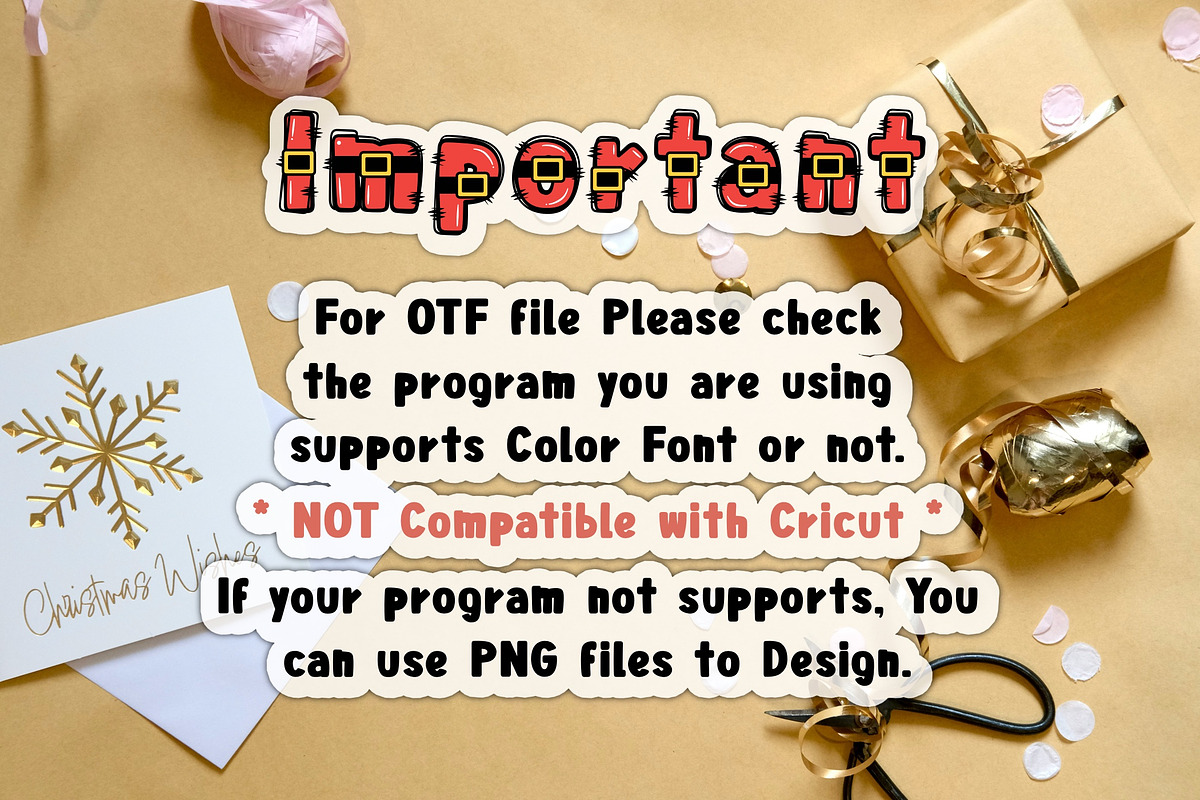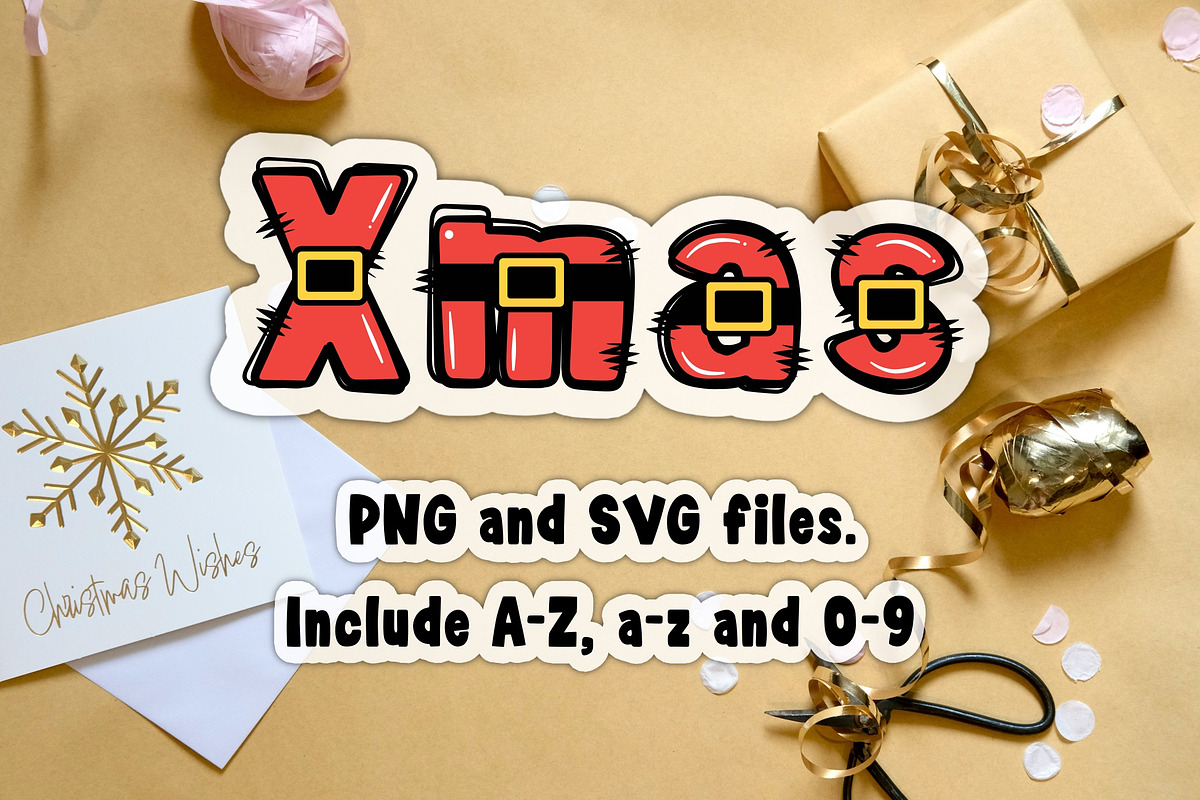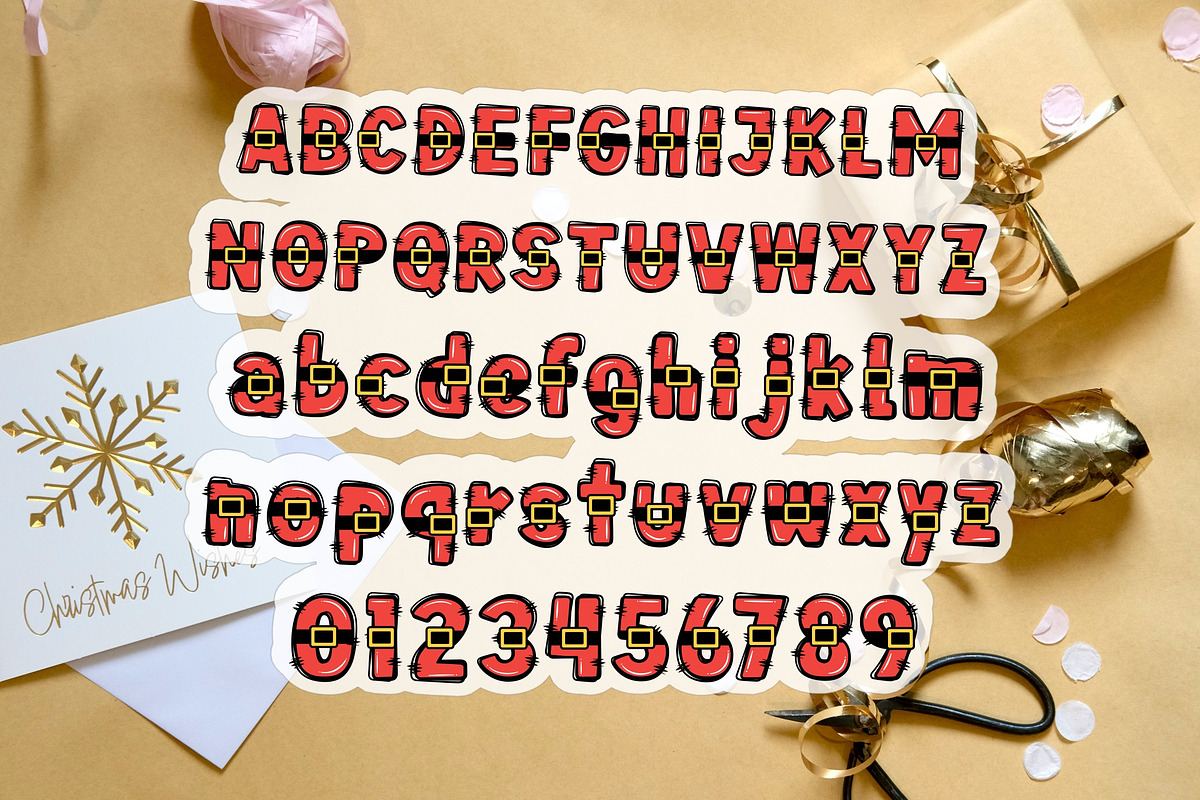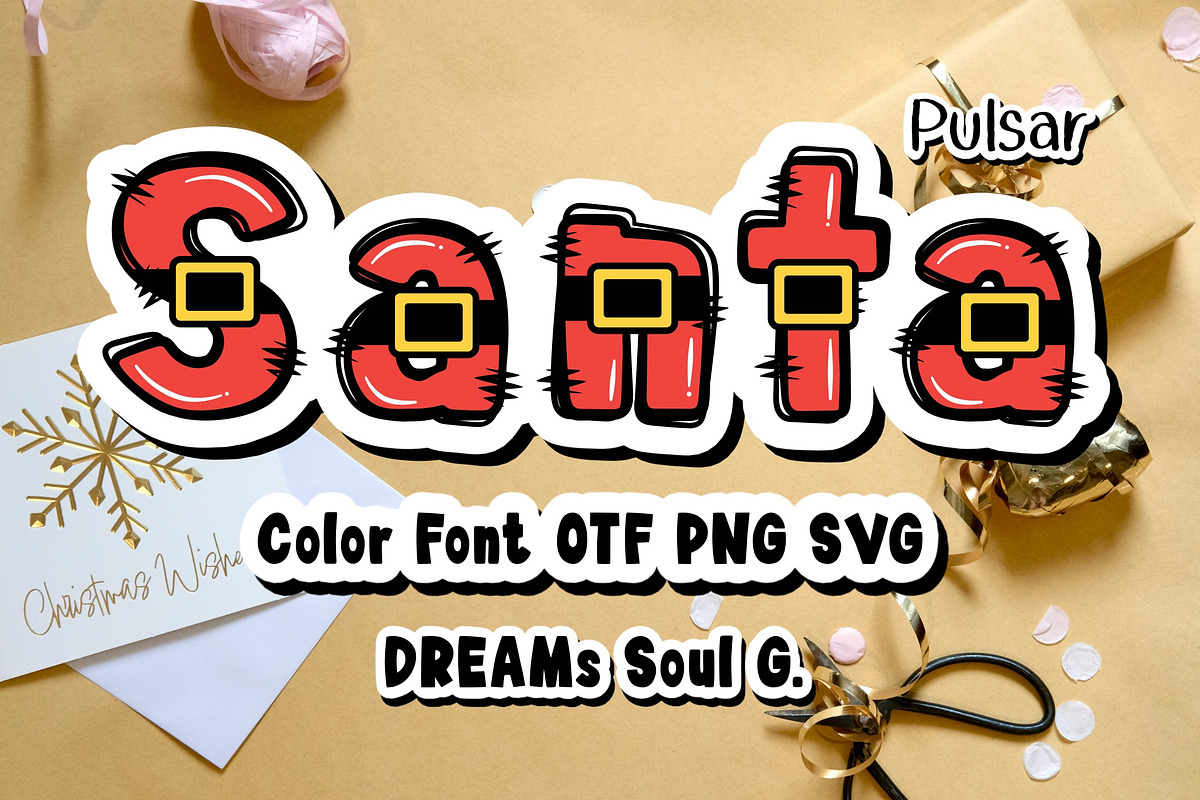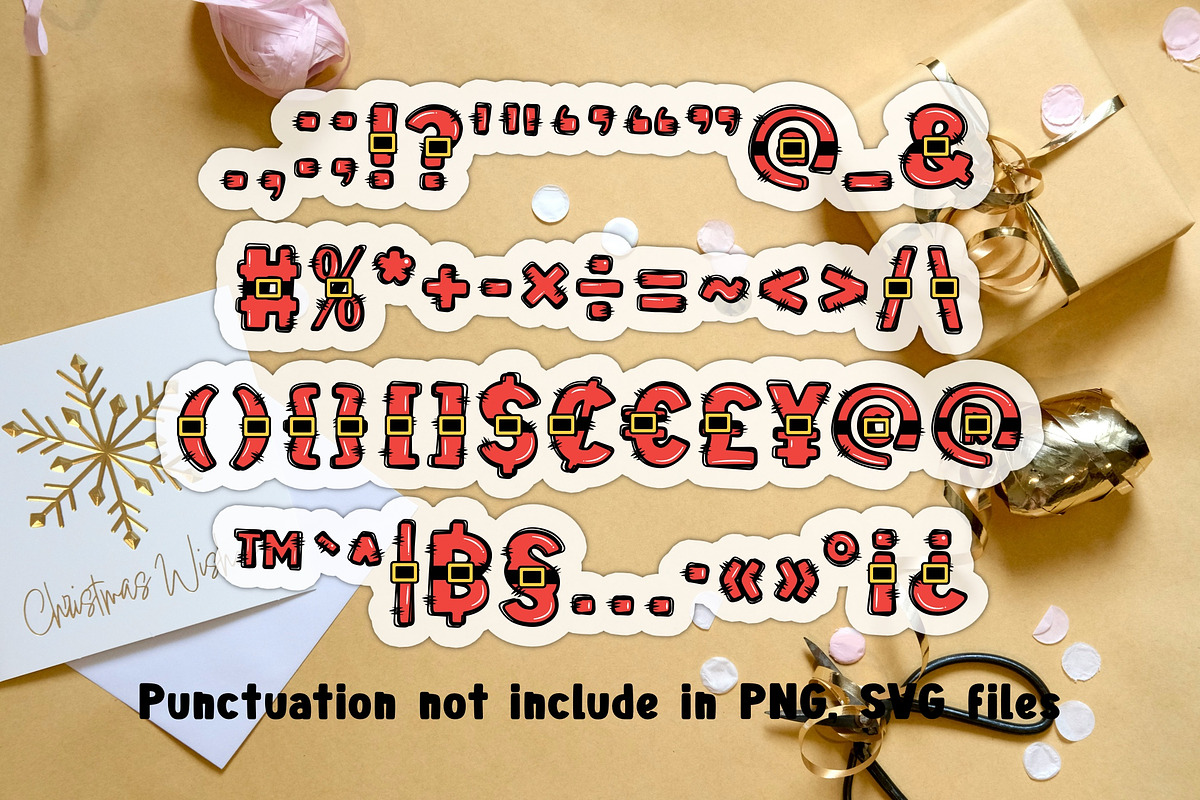
Santa Pulsar OTF PNG SVG
Bring holiday cheer to your designs with this fun and bold Santa Pulsar Color Font! Each letter features a playful Santa-belt style, perfect for Christmas cards, stickers, invitations, sublimation, craft projects, and festive decor.